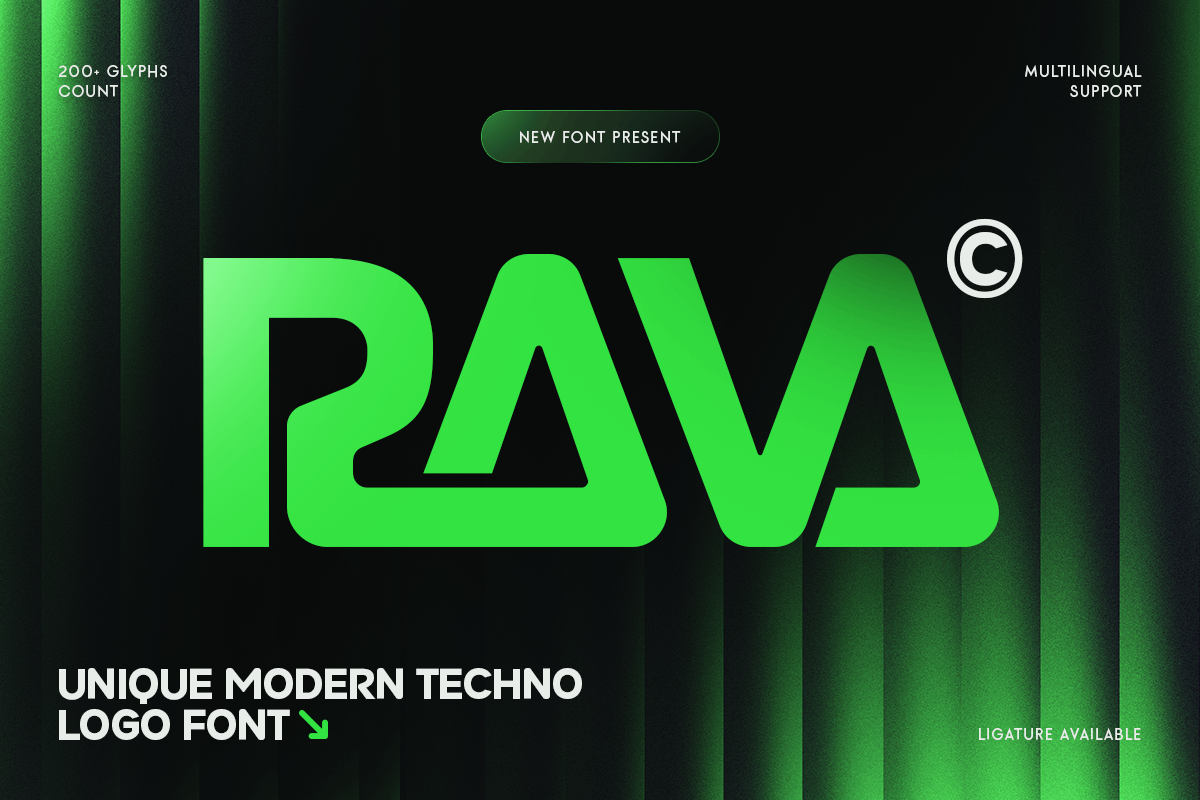
Rava
-Modern Techno Logo FontRava - Modern Techno Logo Font
RAVA is a modern techno logo font designed to bring futuristic precision and bold digital character to your typography. With clean geometric forms, sharp rhythm, and a sleek technology-inspired structure, this typeface creates a modern visual tone that feels innovative, confident, and instantly brand-ready.
Built for tech-focused branding, RAVA works beautifully across logos, wordmarks, startup identities, UI graphics, website headers, app visuals, product launches, presentations, social media campaigns, and futuristic promotional layouts. Its techno structure keeps every composition clear and readable while adding a high-tech edge across both digital and print design.
Whether you’re building a technology brand, creating software visuals, designing a modern startup logo, or crafting sci-fi inspired marketing assets, RAVA provides a sharp typographic foundation that makes your identity feel sleek, smart, and unforgettable.
Inspiration Behind RAVA
RAVA is inspired by futuristic interface design and modern techno branding—where clean geometry, digital rhythm, and precise structure create strong visual recognition. The design focuses on sleek letterforms and innovative clarity to support logos, headlines, and digital-first communication with a confident modern presence.
RAVA Font Features:
Modern techno letterforms optimized for logo and wordmark design
Sleek digital structure with futuristic visual character
Strong readability for headlines, branding, and interface graphics
Perfect for technology brands, startups, and digital products
Tech logos, wordmarks, and startup brand identity systems
UI graphics, website headers, apps, and digital product typography
Futuristic posters, product launches, and sci-fi campaign visuals
Software branding, presentations, and modern corporate visuals
Social media graphics, digital ads, and high-tech marketing assets
Build a futuristic digital identity with RAVA—a modern techno logo font made for sleek, high-impact branding. ⚡✨